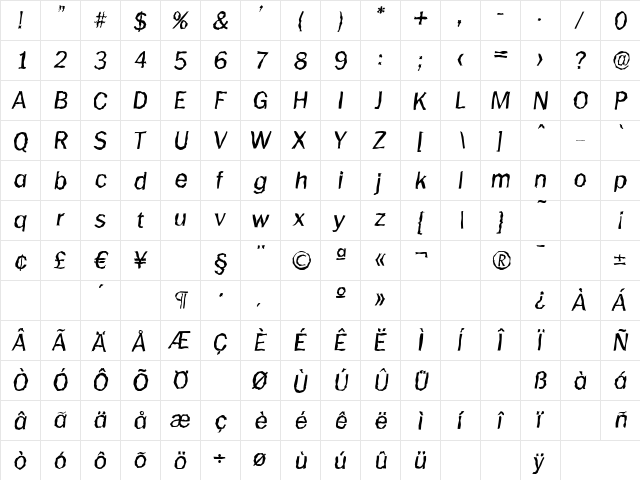
PlymouthRandom Italic
Design Context for PlymouthRandom Typeface
PlymouthRandom takes a measured approach to typography — its balanced proportions and neutral character make it a reliable workhorse for both digital and print work. The slanted form adds forward momentum and visual energy.